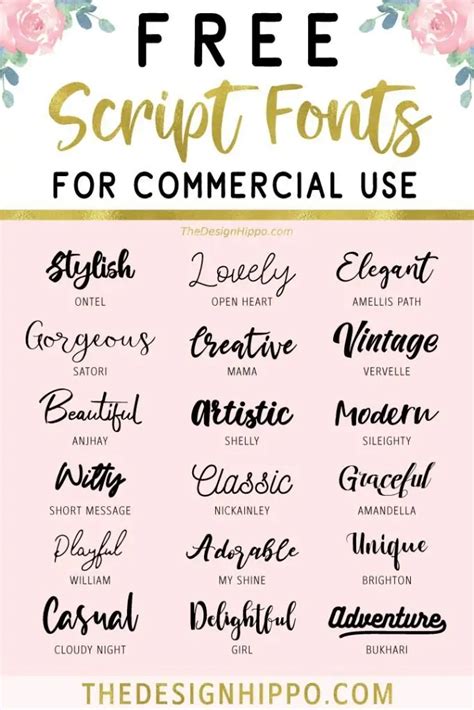
Unlock Your Creative Potential With Free Script Fonts!
Are you looking to unlock your creative potential with free script fonts? Do you need to make your projects stand out from the crowd? If so, you've come to the right place!
Did you know that the right choice of font can make all the difference when creating an eye-catching design? It's true. With the right font, you can create something unique and powerful.
So, why use free script fonts? Well, script fonts are an excellent choice for projects that require a creative, unique look. They can be used to add a special touch to logos, invitations, and other projects that require a bit of extra flair.
The good news is that there are plenty of free script fonts available to use. Whether you're looking for something modern, vintage, or something in between, you're sure to find just the right font for your project.
So, why not unleash your creative potential with free script fonts today? With the right font, you can take your project to the next level. And you don't have to spend a fortune to do it.
Ready to get started? Read on to discover some of the best free script fonts available. Plus, learn how to choose the right font for your project. Invite your readers to read the article to the end and unlock their creative potential with free script fonts.
Unlock Your Creative Potential With Free Script Fonts
Script fonts are a great way to add a unique and creative look to your design projects. They can be used to create beautiful logos, signs, and other pieces of art. However, many people don’t realize that there are lots of free script fonts available for download and use. In this article, we’ll look at some of the best free script fonts and how you can use them to unlock your creative potential.
What Are Free Script Fonts?
Script fonts are fonts that have a handwritten or calligraphic style. They are usually designed to look like a person’s handwriting and can be used to create a unique and creative look. Script fonts can be used for a variety of purposes, including logos, signs, and other pieces of art. They are often used in advertising and print design, as they can help to make a message stand out.
There are many free script fonts available for download and use. These fonts are usually provided by font designers who are looking to get their work out into the world. They are available in a variety of styles and can be used to create unique and creative designs.
How To Use Free Script Fonts?
Using script fonts can help to add a unique and creative look to your designs. You can mix and match different fonts to create a unique look. You can also use the fonts to create a hand-written look, which can be used to create a more personal and customized design.
Where To Find Free Script Fonts?
Types of Free Script Fonts
There are many different types of free script fonts available. Some of the most popular types include brush script, calligraphy, cursive, and hand-drawn fonts. You can find fonts in a variety of styles and weights, so you can find the perfect font for your project.
It’s important to experiment with different fonts to find the one that best fits your design. You can try out different fonts to see which one looks best. You can also use tools such as font pairing tools to find the perfect combination of fonts.
Tips for Using Free Script Fonts
When using free script fonts, it’s important to keep a few things in mind. First, make sure that the font is legible and easy to read. You don’t want to create a design that is hard to read or difficult to understand. Second, make sure that the font fits the design. You don’t want to use a script font for a serious design, for example.
Finally, make sure that the font is appropriate for the project. For example, if you are creating a logo for a business, you probably don’t want to use a script font. Instead, you might want to use a more traditional font.
Using Free Script Fonts to Unlock Your Creative Potential